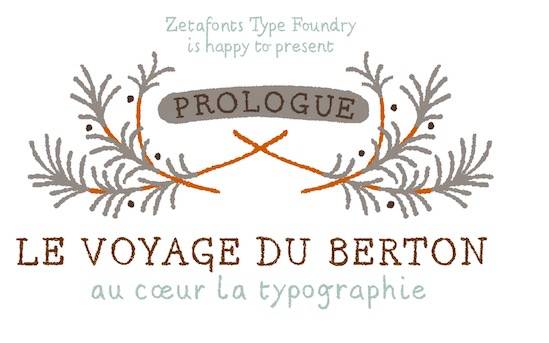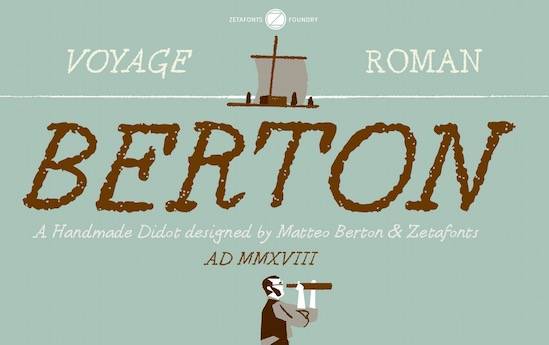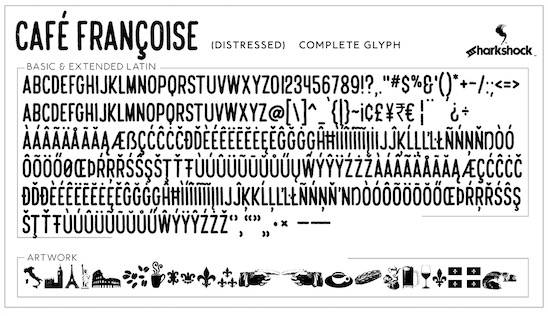
Right Chalk Font is a new chalk Script typeface along with many beautiful looks. The Right Chalk Font is a free chalk script from Jeremy Vessey. It has a vintage script aesthetic that is extremely popular.
Right Chalk Font
FONTS SIMILAR TO RIGHT CHALK
1. Squeaky Chalk Sound font
Squeaky Chalk Sound font is the first chalk font which we want to introduce to designers. It was designed and released by Anke-Art. You can use this chalk font for personal and commercial purposes at ease. Download this chalk font by clicking through the Download button below.
2. Blzee Chalk Font
Blzee font is a chalkboard se font typeface and it is categorized into sans serif fonts. This chalk sans serif font was designed by Blaise Kal. You can use this sans serif font for personal and commercial uses. To possess Blzee Chalk Font now by clicking through the download button below.
3. Rudiment Font
Rudiment font is a handwritten typeface which was designed and published by Kevin Richey. Rudiment chalk font is an exquisite handwritten script font, and it was masterfully created to become a true favorite.
4. Tafelschrift Font From Anke – Art
Tafelschrift Font is a sweet, soft hand-lettered handwritten typeface. It is an incredibly stylish handwritten font. Its unique style makes it particularly adept at a wide variety of design projects, be it greeting cards, beautiful stationary art, wedding invitations, eye-catching social media posts, and more.
5. KR Rachel’s Chalkboard Font
6. Bad Gong Font
Bad Gong Font is a modern and cool handwritten typeface, and it was carefully created and released by Peter Wiegel. This chalk font is a perfect addition to professional designers. It is perfect for custom printable, wall art, packaging, wedding design, blog headers, posters, inspirational quotes, business cards, invitation cards, signature logos, etc.
7. Berton Font Family
Berton Font Family is a unique serif typeface with handwritten script style. Berton is a chalk font which was designed and released by Zetafonts foundry.
8. Better Sweet Font
9. Blah blah bang Font
Blah blah bang Font is a bouncy handwritten typeface. It was created and published by Junkohan Hero along with a unique and gorgeous chalk style. It will make all of your design projects more beautiful.
It is an exclusive script font with a unique chalk brush style. This chalk font has a great characters set, and it was perfectly managed with well-spaced and kerning.
10. Cafe Francoise Font
Cafe Francoise Font – a fancy logo sans serif font. It has a rough, bold, style and the space between the characters is quite narrow. This chalk font family was updated to now it includes both a distressed and regular version. The latter more closely resembles a handwritten look with detail is very high. Use Café Françoise chalk font for a poster, cafe menu, and bakery logo.
11. Chalk Line Font
Chalk Line Font is an elegant vintage display typeface. It was created and published by JLH Fonts. With a unique chalk typeface style, it’s available in OpenType and TrueType formats. You can use this font FREE for personal and commercial uses.
12. CHAWP Font
CHAWP Font was designed and published by Tyler Finck. It’s really a modern chalk font with a unique gorgeous handwritten style.
13. Choretto Demo Font
Choretto Demo Font was designed and released by Edric Studio. It’s a Display font with a handwritten style. Choretto Demo Script Typeface is handwritten stylish copperplate fonts, combines from contemporary typeface with a dancing baseline, with an elegant touch and classic.
Can be used Choretto Demo chalk font for various purposes. Such as badges, posters, news, labels, signage, letterhead, t-shirt, wedding invitation, logos, signature, headings, and more.
14. CoalhandLukeTRIAL Font
CoalhandLukeTRIAL Font is a great handwritten script typeface which was created by JOEBOB graphics. With a unique style of a gorgeous chalk font, CoalhandLukeTRIAL Font will elevate every your design project up to the highest pro level.
Add this font to your most creative design ideas, the professional, or premium design projects, and notice how it makes them become a stand out product!
Conclusion
These are some typical chalk fonts. Hopefully, this collection will help you in the design process.